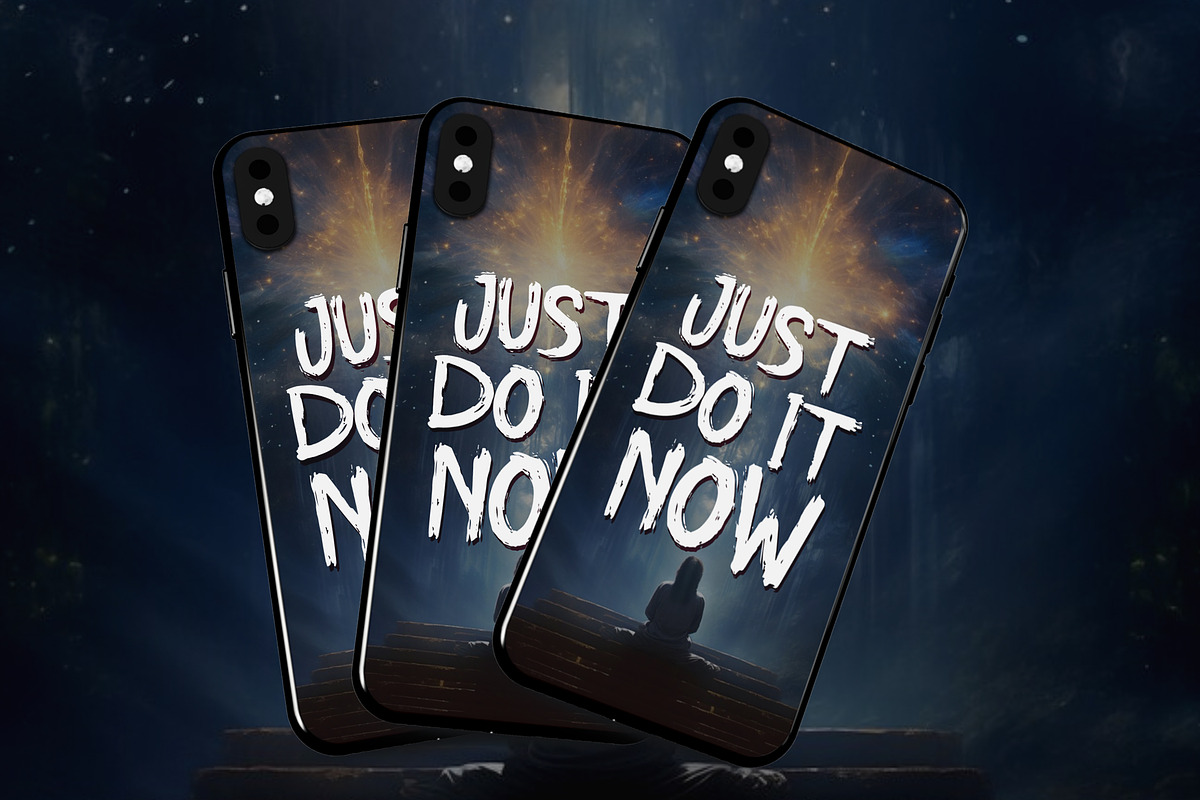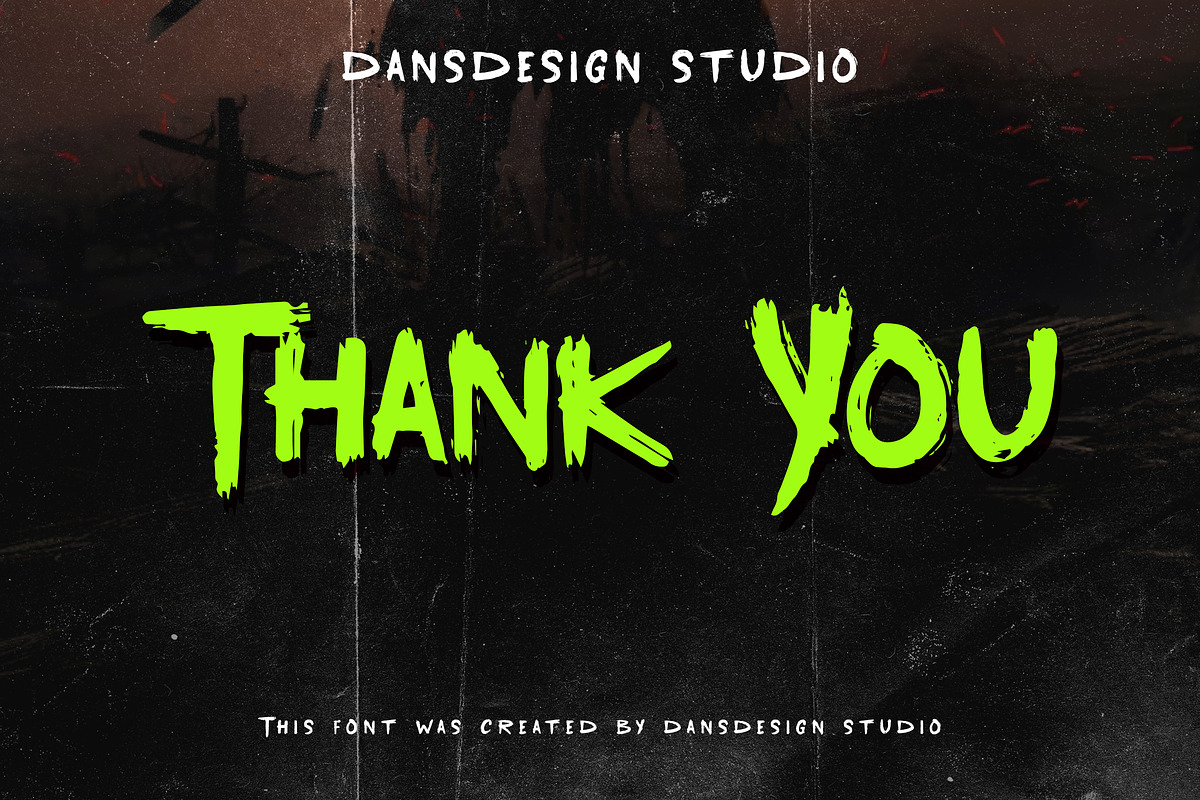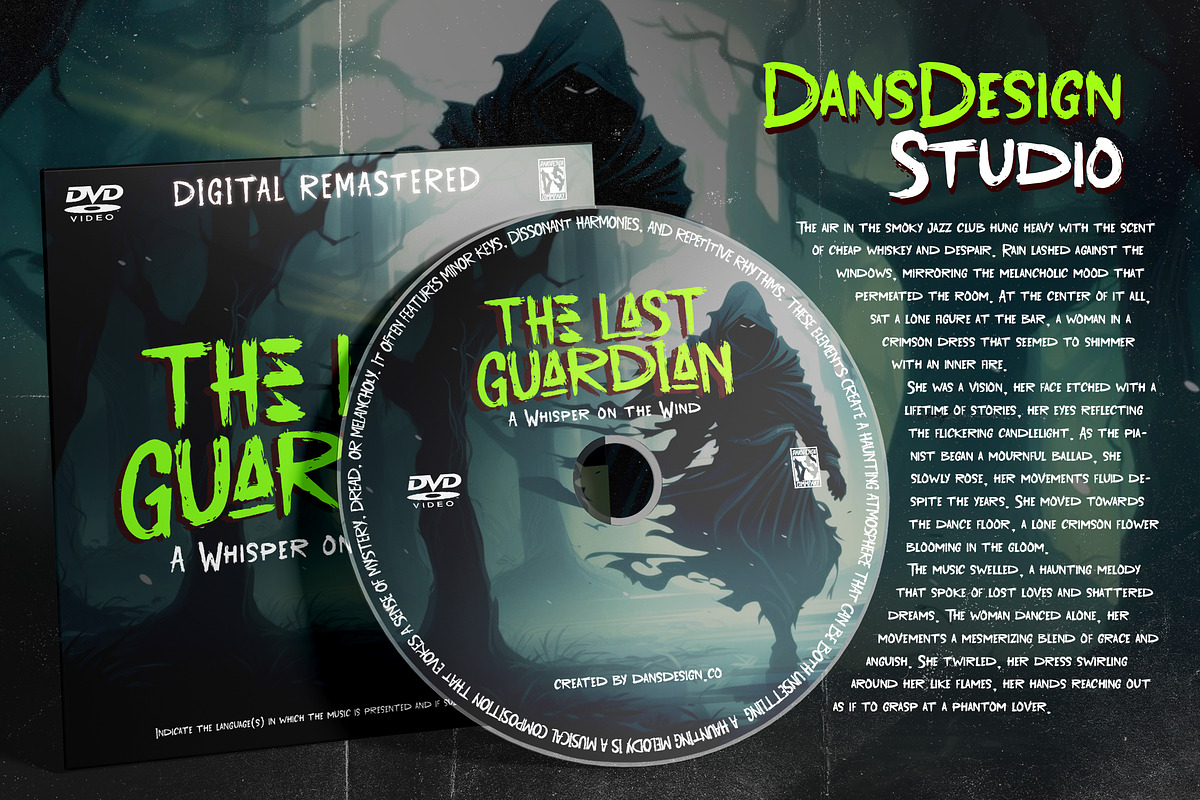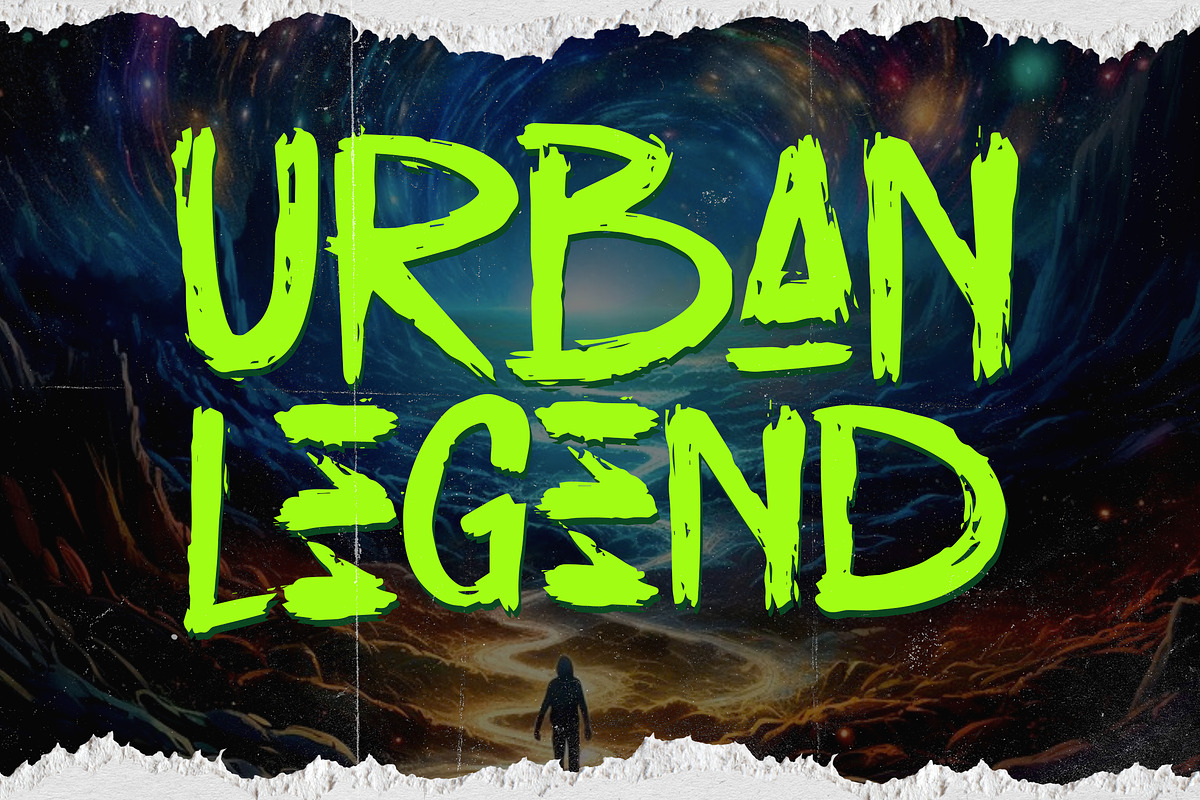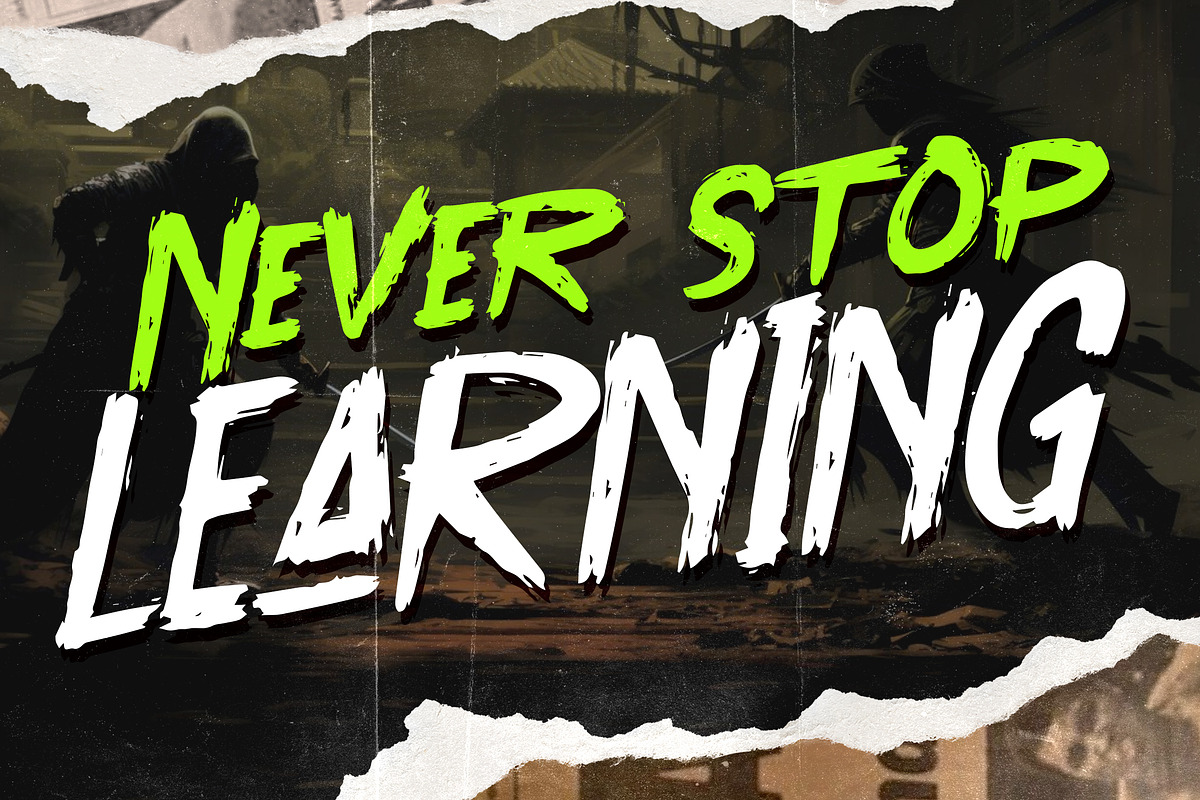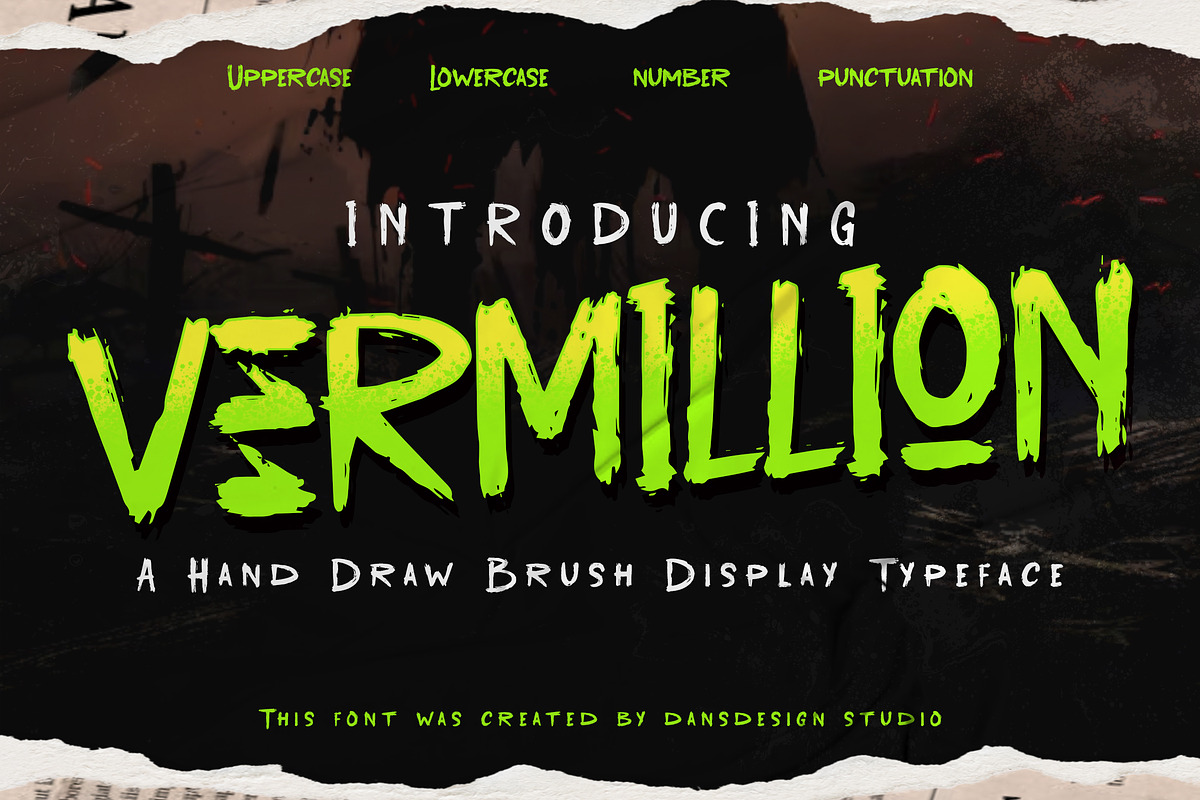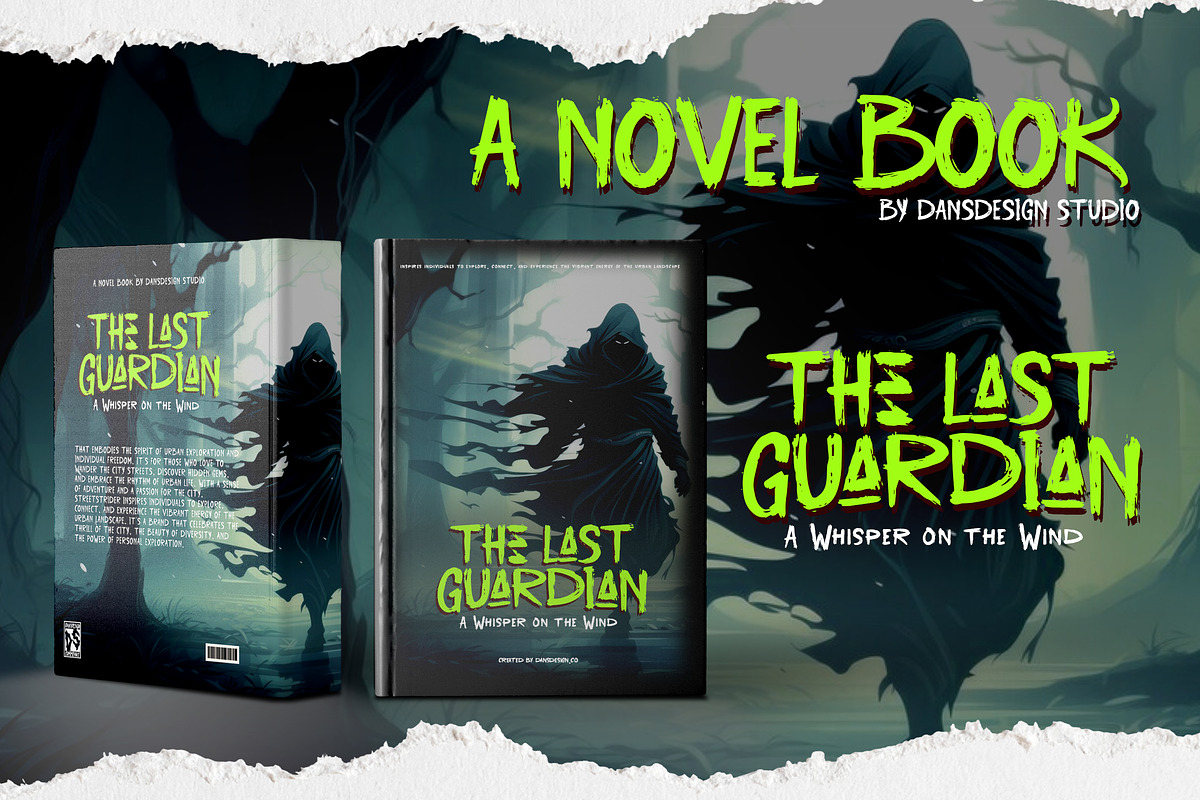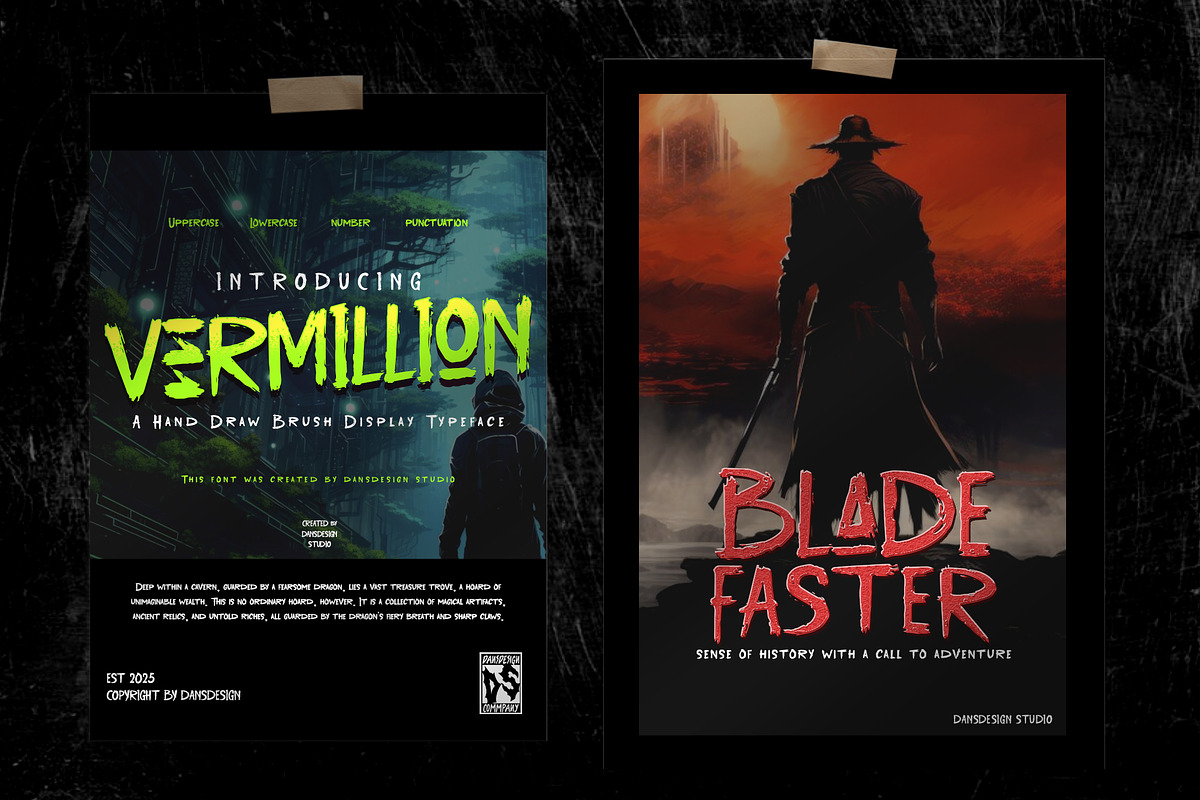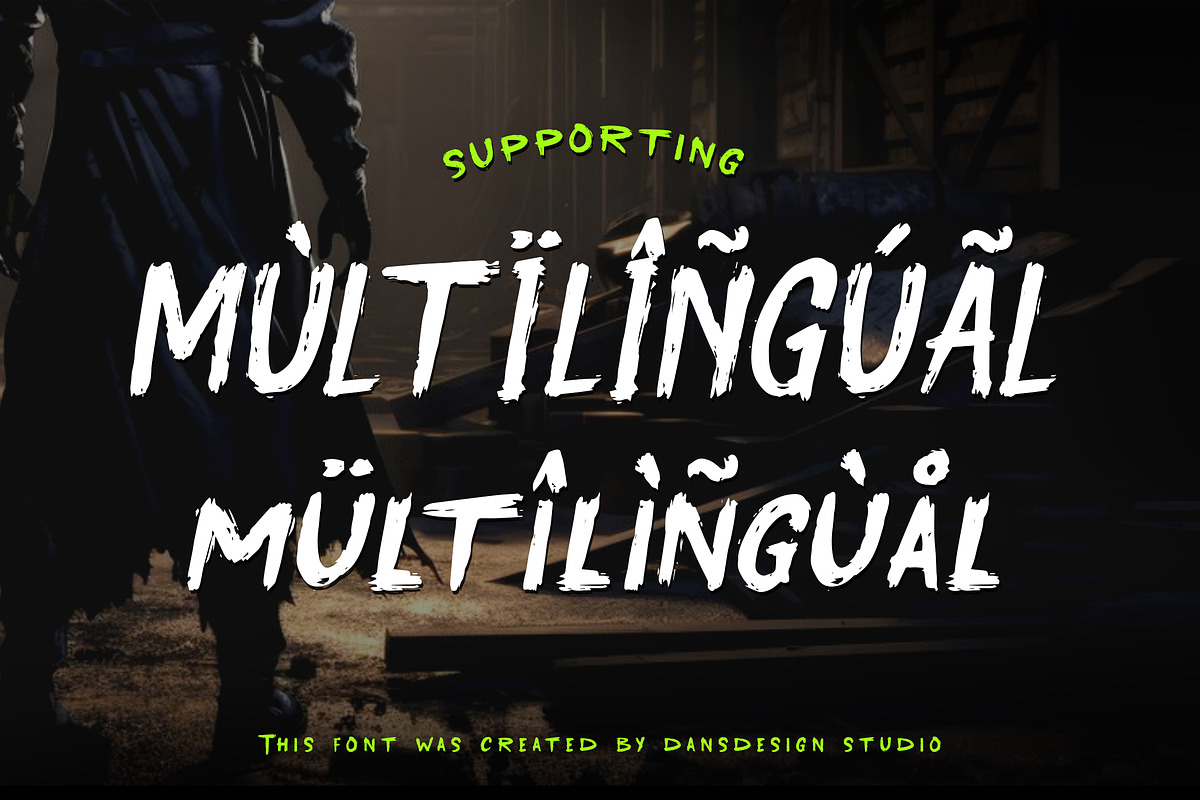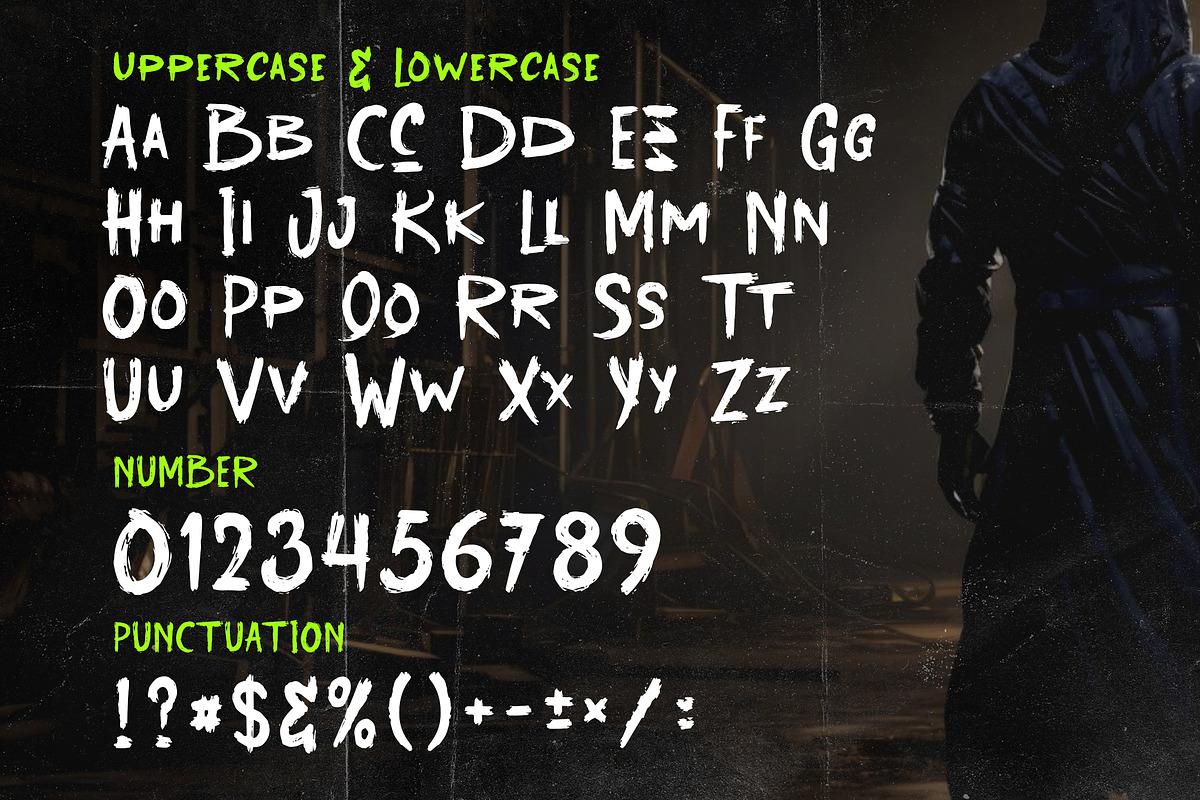
Vermillion Rough Hand Draw Brush
Vermillion – Hand-Drawn Brush Typeface for Horror, Punk, and Underground Designs
Vermillion is a raw, gritty, and high-energy brush display font made for those who thrive on chaos and attitude. Inspired by punk rebellion, horror visuals, and underground street art, this hand-drawn typeface injects bold personality into every word. Whether you're designing for music, mayhem, or madness — Vermillion delivers impact.
Horror movie posters Punk and metal album covers Zombie or apocalyptic game titles Urban graffiti-style branding Skater and extreme sports visuals YouTube thumbnails or Twitch graphics
Sharp, handmade brush strokes with uneven edges Grunge and horror-ready texture Multilingual support with accented characters PUA Encoded – access all glyphs easily Includes numbers & punctuation (OpenType standard) Formats: OTF / TTF / Webfont (WOFF / WOFF2)
Let your message scream through fear, fury, and freedom. Vermillion isn’t just a typeface – it’s an unleashed voice from the underground.